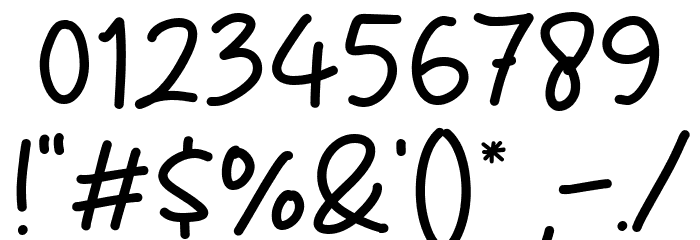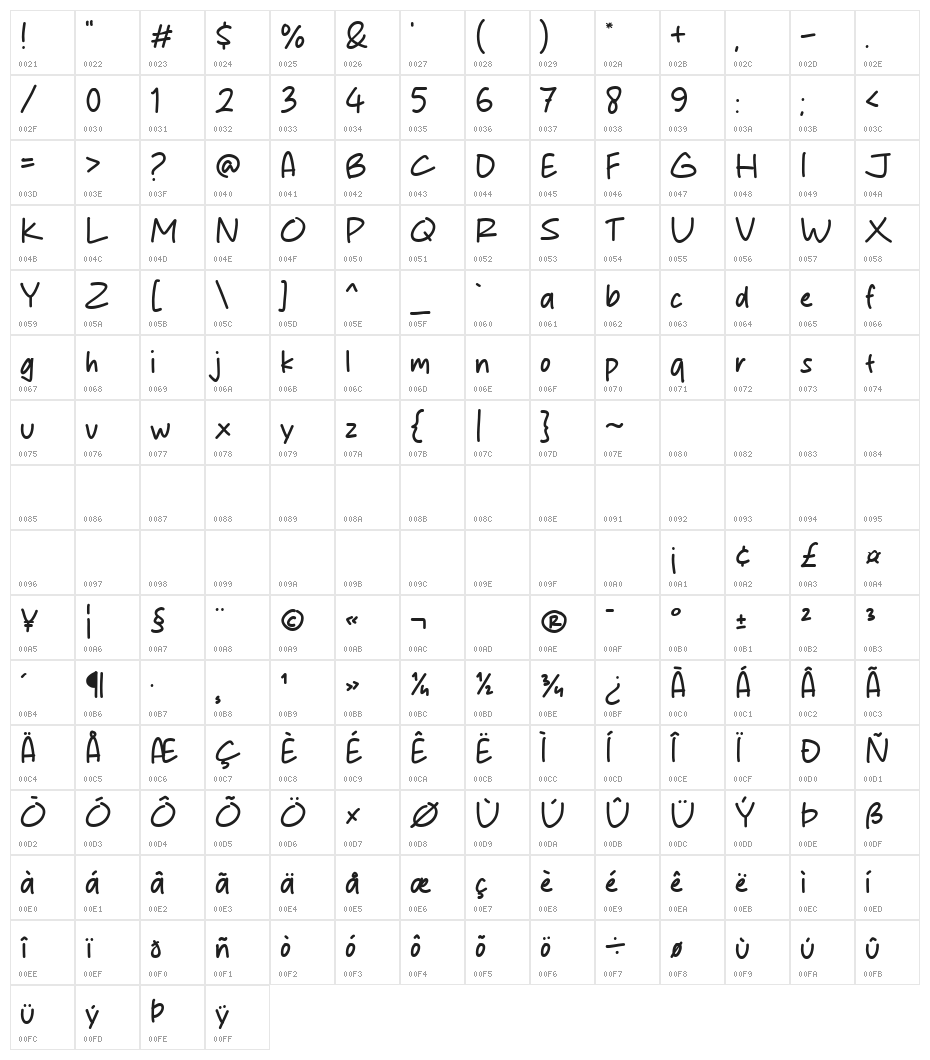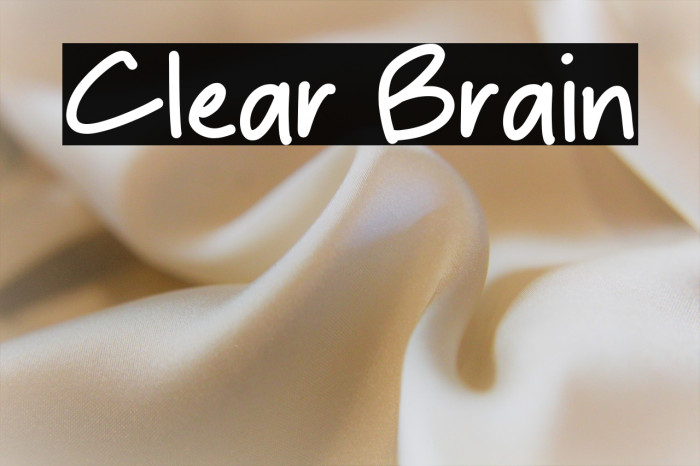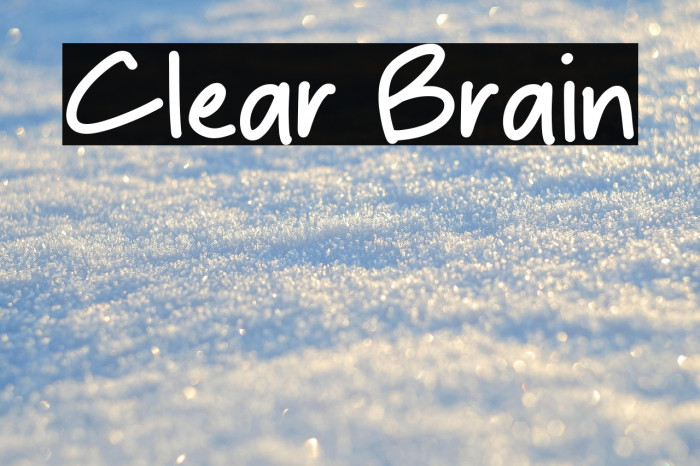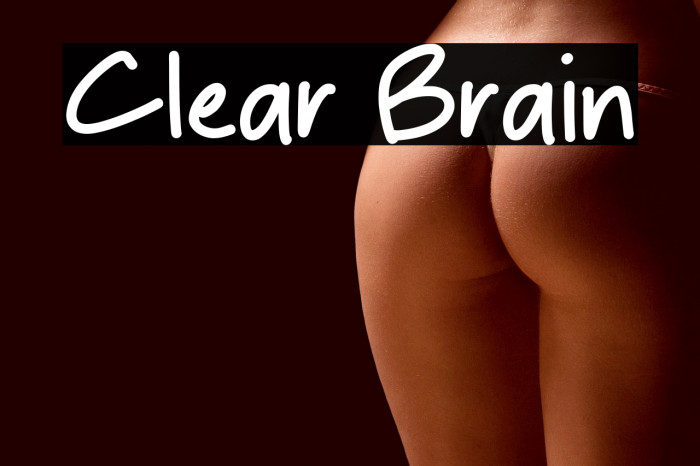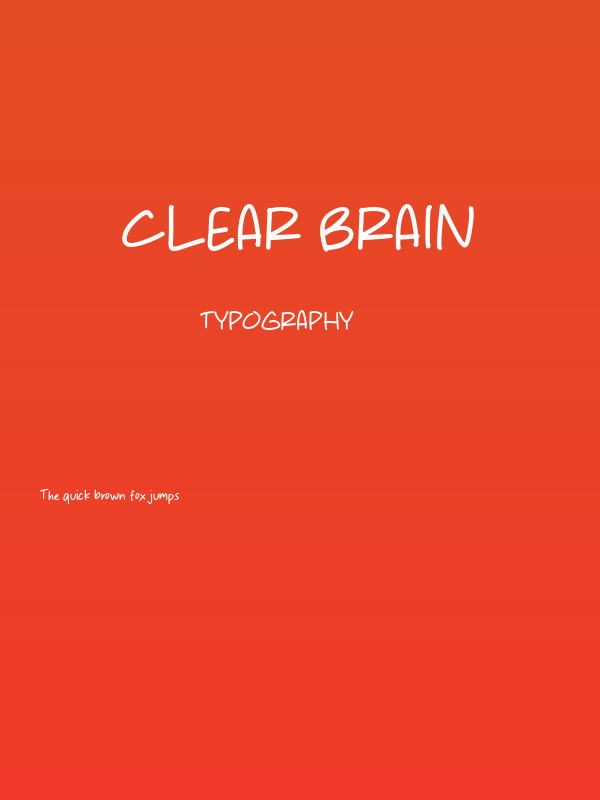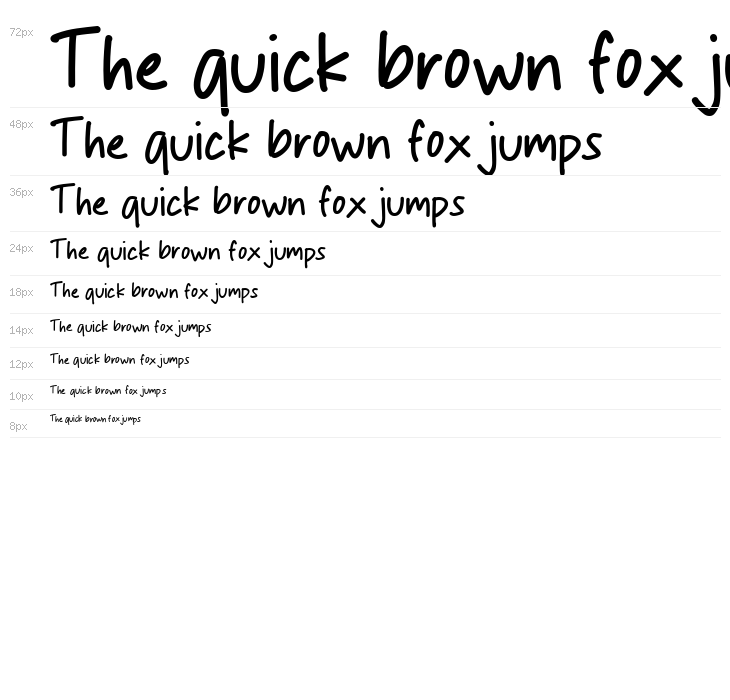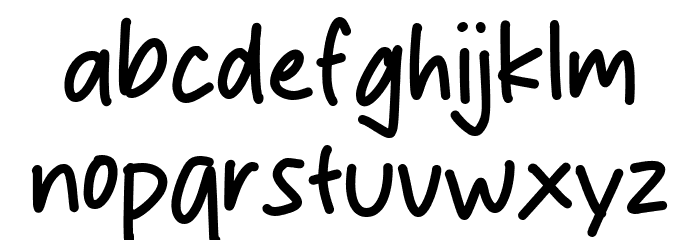
Clear Brain Font
Clear Brain Description
This font features a playful and casual handwritten style, characterized by its smooth, rounded edges and slightly irregular strokes that mimic natural handwriting. The uppercase and lowercase letters maintain a consistent flow, giving it a friendly and approachable appearance. Numbers and special characters are crafted with the same informal touch, ensuring uniformity across all elements. The font's overall design is clean and legible, making it suitable for a variety of creative applications. Its informal nature lends itself well to projects that require a personal touch, such as greeting cards, invitations, and casual branding.
Proposed ProjectsIdeal for greeting cards, invitations, casual branding, and personal projects.